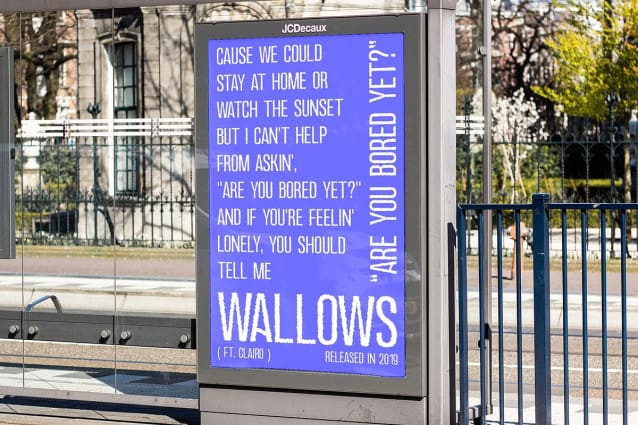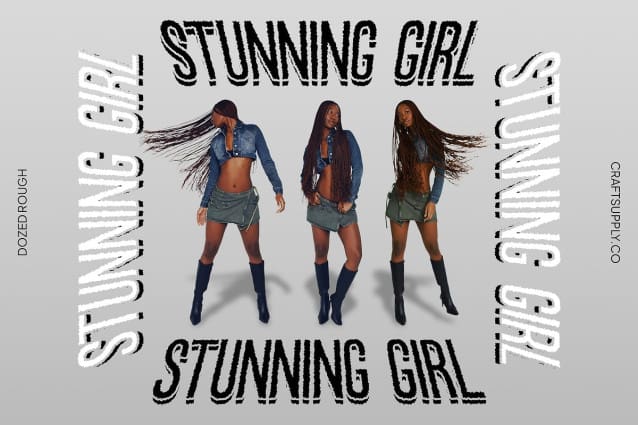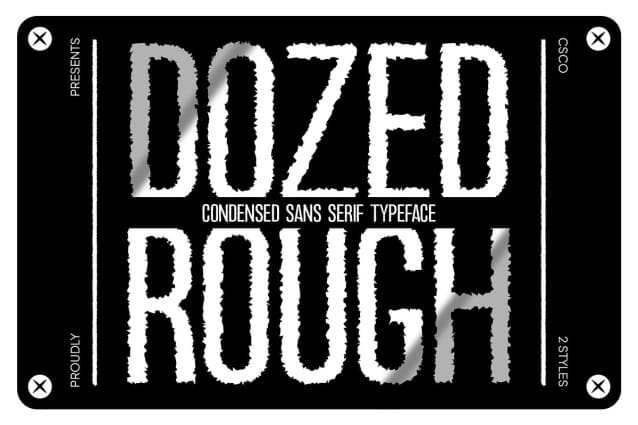
Dozed Rough Font
Dozed Rough Font is a condensed sans-serif font designed to convey a bold and unique impression. Its compact and modern sans-serif design ensures clarity and impact in any design application.
Adding to its distinctive appeal, Dozed Rough features an intriguing rough texture on its letters. This rough texture introduces a rugged dimension to the font, perfect for designs that seek to emphasize courage and uniqueness.
Designed for boldness, Dozed Rough is ideal for posters, headlines, and branding materials where a strong and impactful statement is needed. The combination of its condensed form and rough texture creates a visually striking effect that commands attention.
Despite its compact design, Dozed Rough offers versatility across various design projects. Whether for digital platforms or print media, this font ensures your message stands out with clarity and character.
In conclusion, Dozed Rough is a condensed sans-serif font that combines a modern design with an intriguing rough texture. Ideal for designs aiming to convey a bold and unique impression, this font adds a rugged dimension that enhances courage and uniqueness in any creative endeavor.